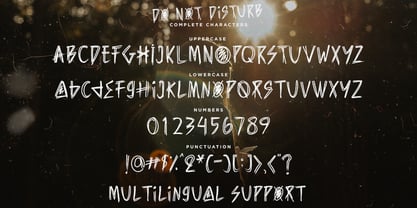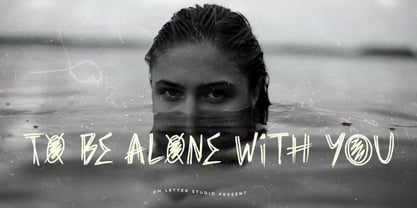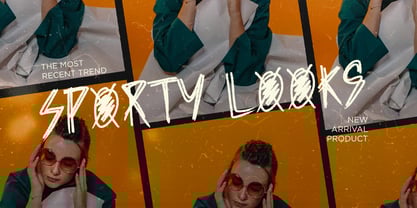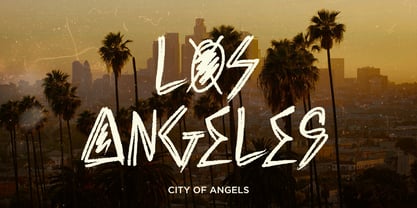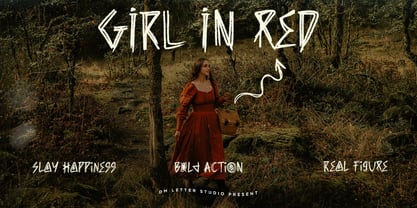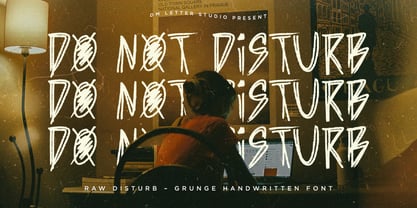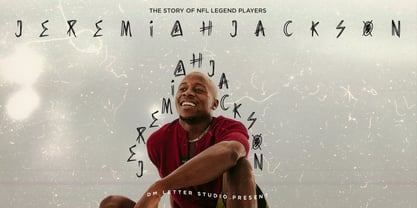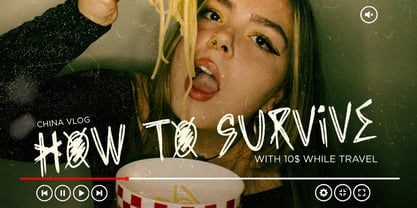
Do Not Disturb
The Do Not Disturb Font Family was designed by Dimas Prasetyo and published by DM Studio. Do Not Disturb contains 1 styles.
Unleash attitude with Do Not Disturb, a grunge handwritten font that blends rebellious energy with refined character. Designed by DM Letter Studio, this font is perfect for brands and designers who dare to disrupt the norm.
Its scratchy, uneven strokes and expressive letterforms create a hand-drawn style that oozes authenticity. Whether you're crafting a modern vintage logo, designing a luxury apparel brand, or building a corporate identity with a gritty edge, Do Not Disturb offers that rare balance of elegant imperfection and raw expression.
Use it in everything from high-end corporate branding and fashion editorials to poster art, social media, and vintage product packaging. This font doesn't whisper—it shouts with intention.
• Corporate logo with an urban flair
• Luxury branding that breaks tradition
• Modern and elegant packaging
• Vintage apparel and music merchandise
• Film posters, album covers, and editorial graphics
• Bold statement quotes and creative titles
• Uppercase A–Z
• Numbers & punctuation
• Multilingual characters
• Raw & rough brush texture